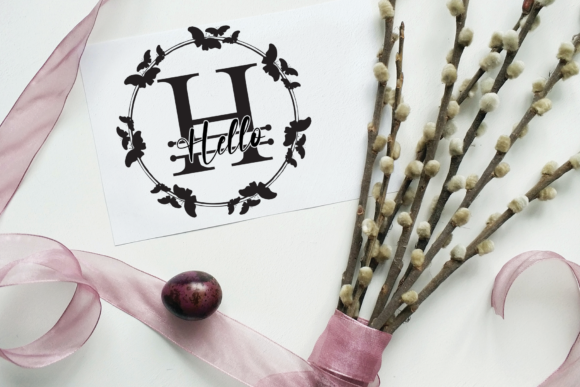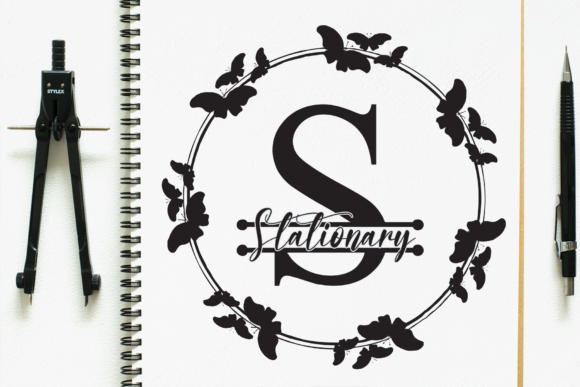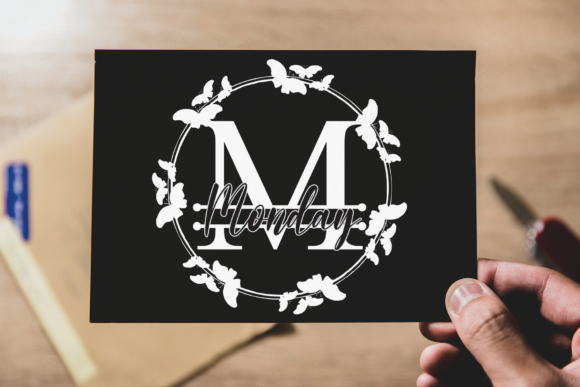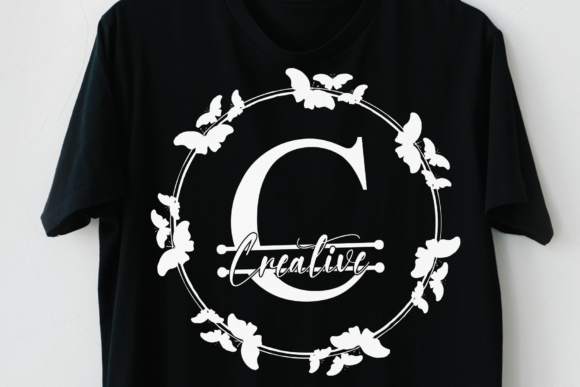
Introducing the Butterfly Font: A Dainty and Unique Decorative Font
Are you looking for a font that can add a touch of romance and whimsy to your designs? Look no further than the Butterfly Font. This beautiful, dainty, and unique decorative font is perfect for adding a personal touch to your love letters, wedding invitations, and favorite design ideas.
What is the Butterfly Font?
The Butterfly Font is a decorative font that features intricate and delicate designs, reminiscent of butterfly wings. The font is carefully crafted to resemble the beautiful and intricate patterns found in nature, making it perfect for designs that require a touch of elegance and sophistication.
Characteristics of the Butterfly Font
The Butterfly Font has several characteristics that make it stand out from other fonts. Some of its key features include:
- Dainty and delicate design: The Butterfly Font features a delicate and dainty design that is perfect for adding a touch of romance and whimsy to your designs.
- Unique and intricate patterns: The font features intricate and unique patterns that are reminiscent of butterfly wings, making it perfect for designs that require a touch of elegance and sophistication.
- Romantic and lovely look: The Butterfly Font has a romantic and lovely look that makes it perfect for love letters, wedding invitations, and other designs that require a personal touch.
Uses of the Butterfly Font
The Butterfly Font is a versatile font that can be used in a variety of designs, including:
- Love letters: Add a touch of romance and whimsy to your love letters with the Butterfly Font.
- Wedding invitations: Make your wedding invitations stand out with the beautiful and elegant design of the Butterfly Font.
- Design ideas: Use the Butterfly Font to add a personal touch to your favorite design ideas, such as scrapbooking, card making, and other craft projects.
Tips for Using the Butterfly Font
Here are some tips for using the Butterfly Font in your designs:
- Use it sparingly: The Butterfly Font is a decorative font, so it’s best to use it sparingly to add emphasis to your designs.
- Pair it with other fonts: Pair the Butterfly Font with other fonts to create a unique and interesting design.
- Experiment with colors: Experiment with different colors to find the perfect combination that complements your design.
Why Designers and Crafters Love the Butterfly Font
Designers and crafters love the Butterfly Font for several reasons:
- Unique and eye-catching design: The Butterfly Font features a unique and eye-catching design that makes it perfect for designs that require a personal touch.
- Elegant and sophisticated look: The font has an elegant and sophisticated look that makes it perfect for designs that require a touch of elegance and sophistication.
- Versatile: The Butterfly Font is a versatile font that can be used in a variety of designs, from love letters to wedding invitations and other craft projects.
In conclusion, the Butterfly Font is a beautiful and unique decorative font that is perfect for adding a touch of romance and whimsy to your designs. Its delicate and dainty design, intricate patterns, and romantic look make it perfect for love letters, wedding invitations, and other designs that require a personal touch. Whether you’re a designer or crafter, the Butterfly Font is a great addition to your font collection.